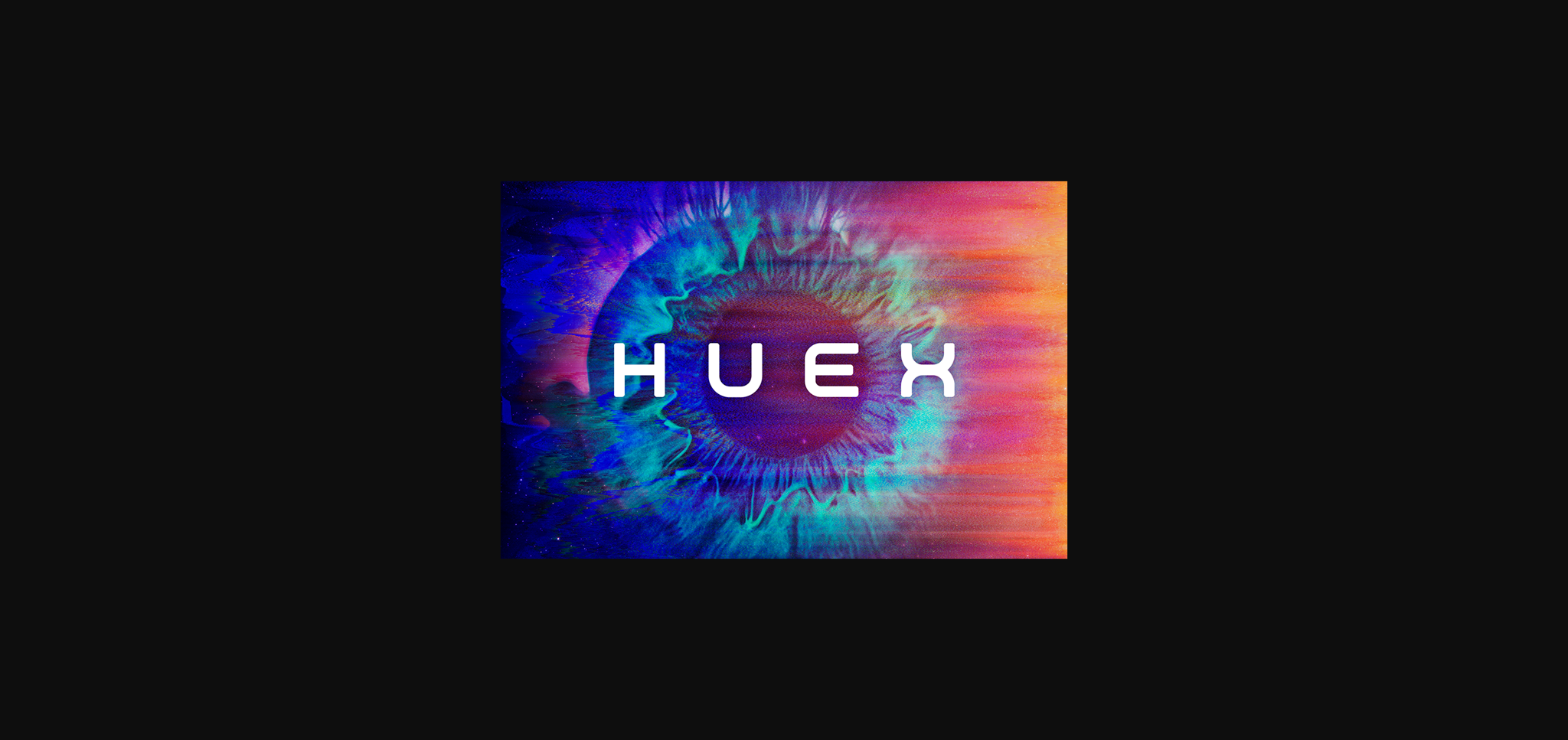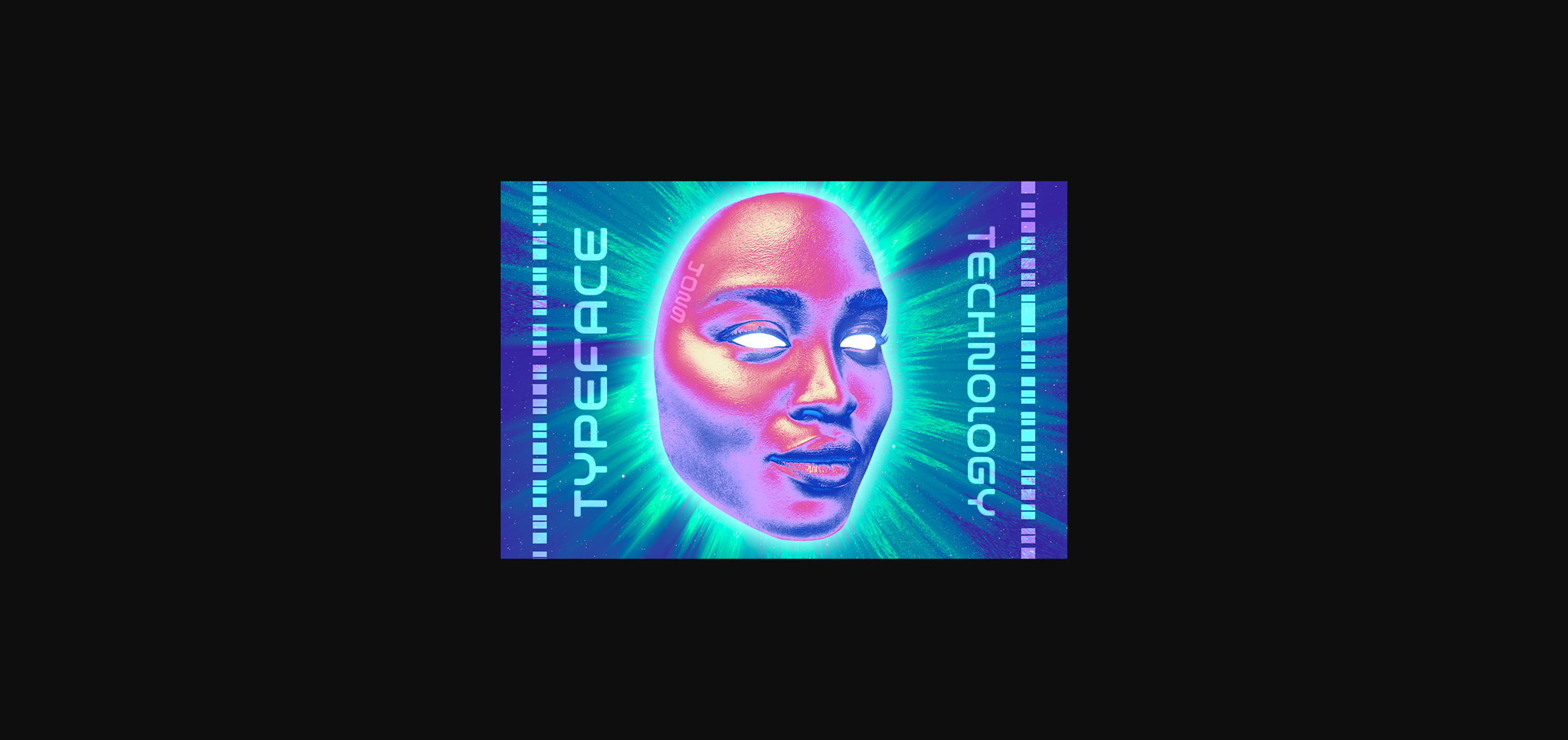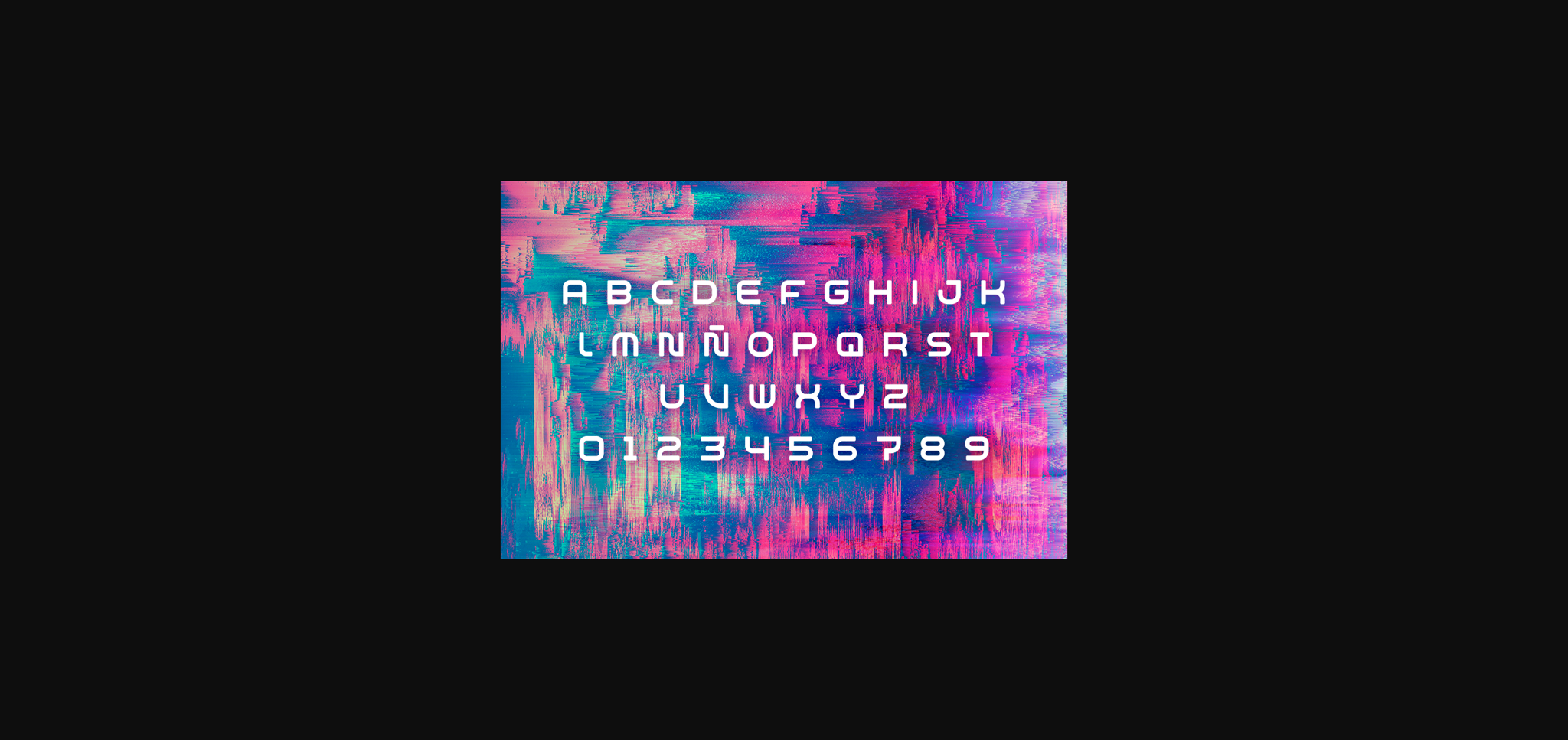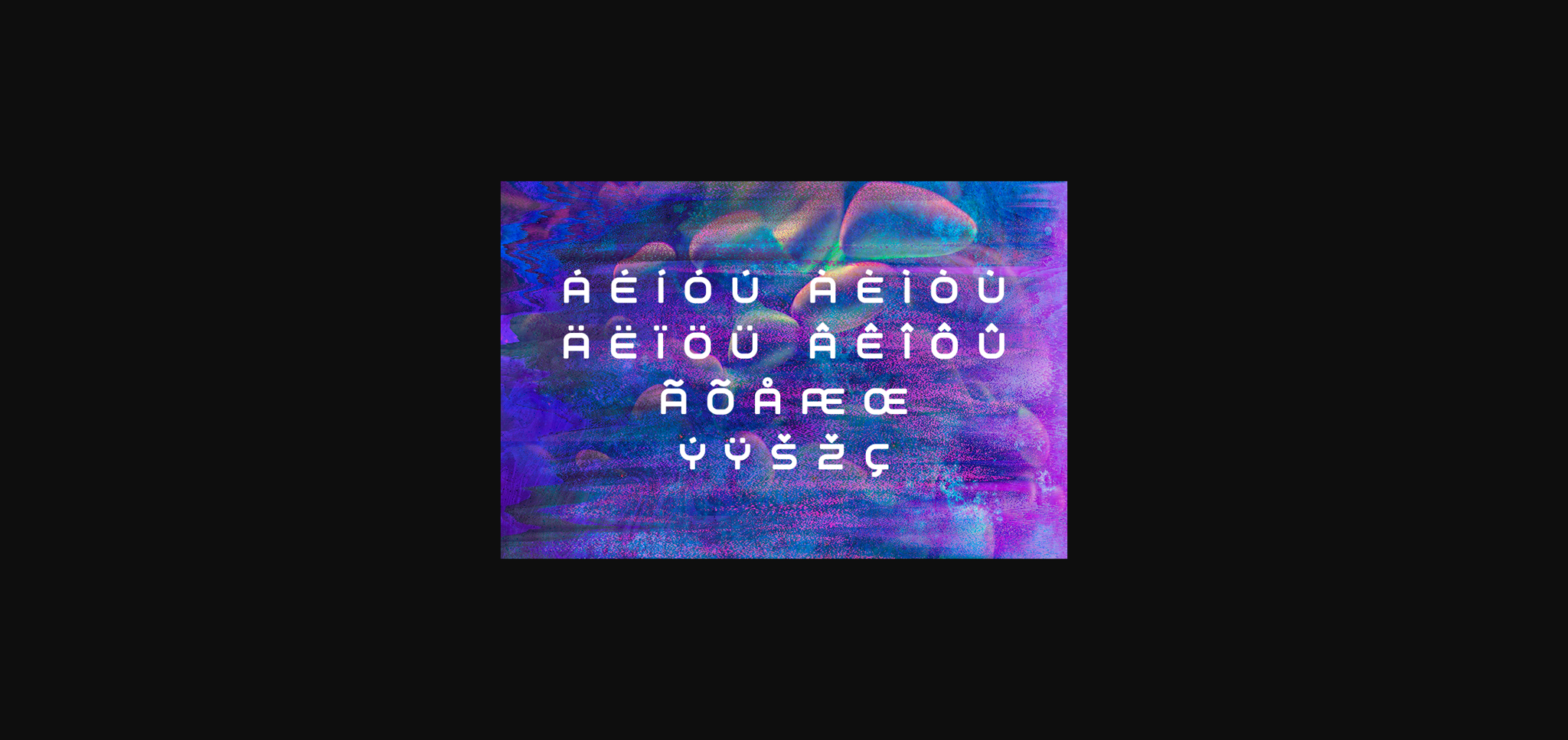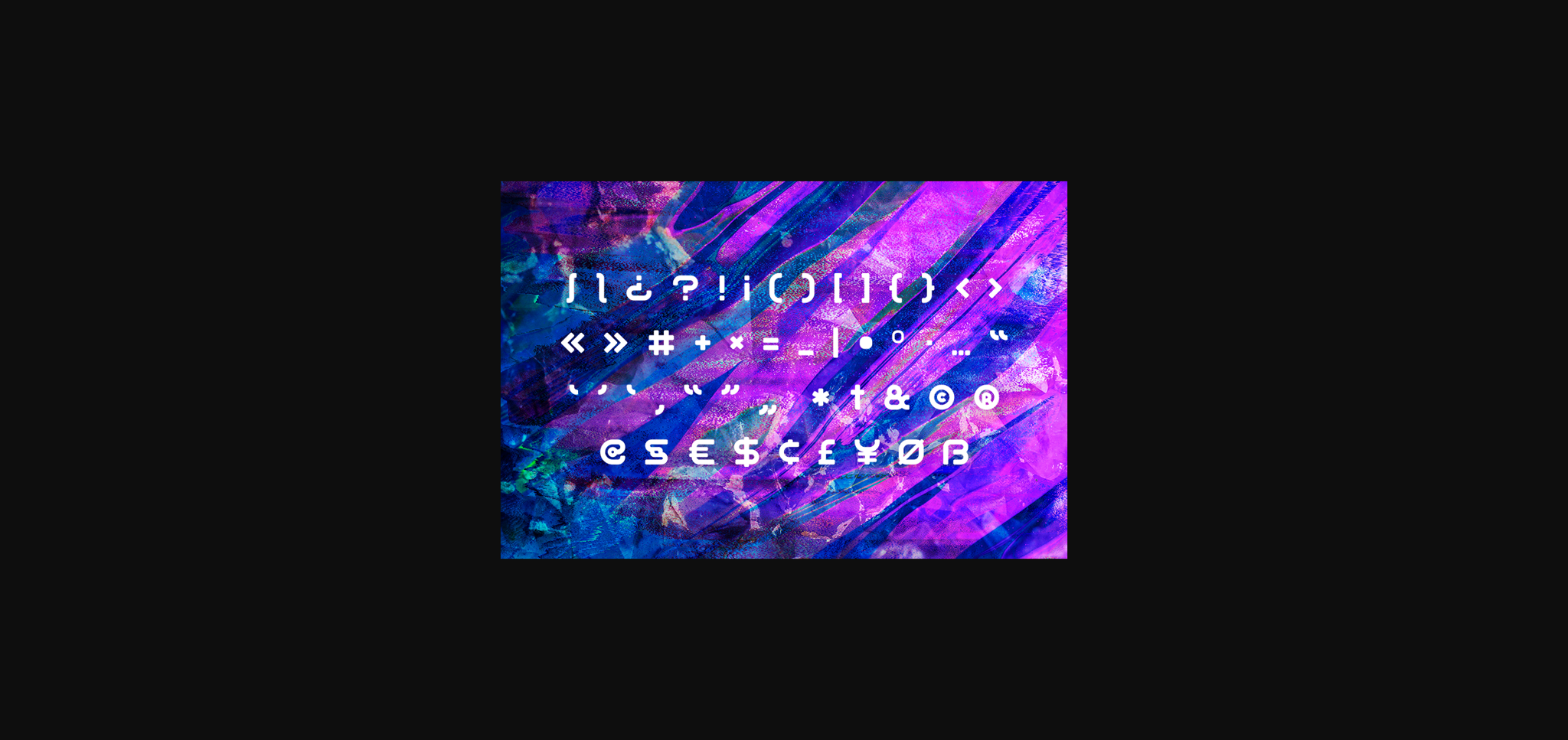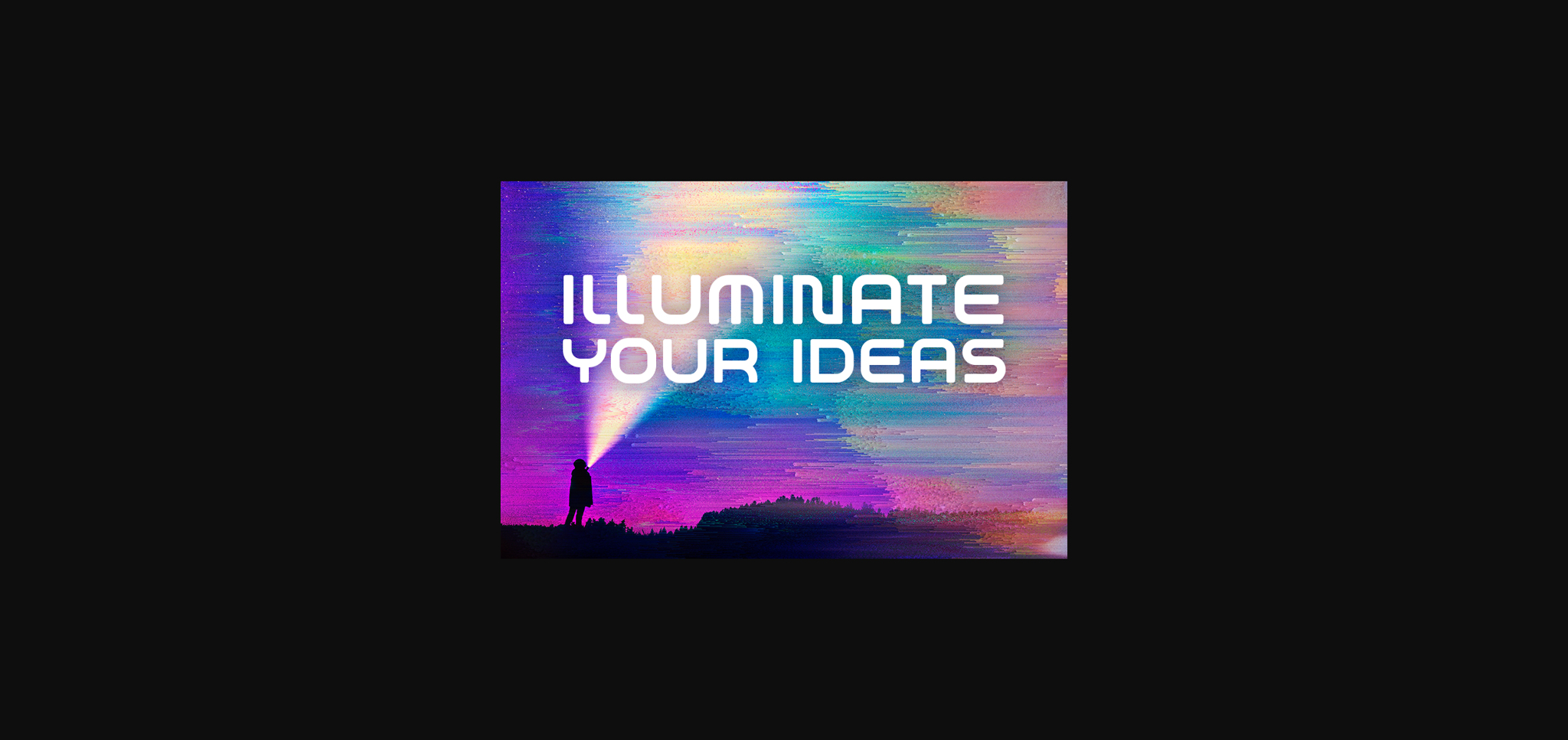
Huex Font
About Huex Font
Huex is a modern and authentic sans serif font. Its futuristic and playful style make it incredibly versatile. This masterfully designed display font is a true must-have.